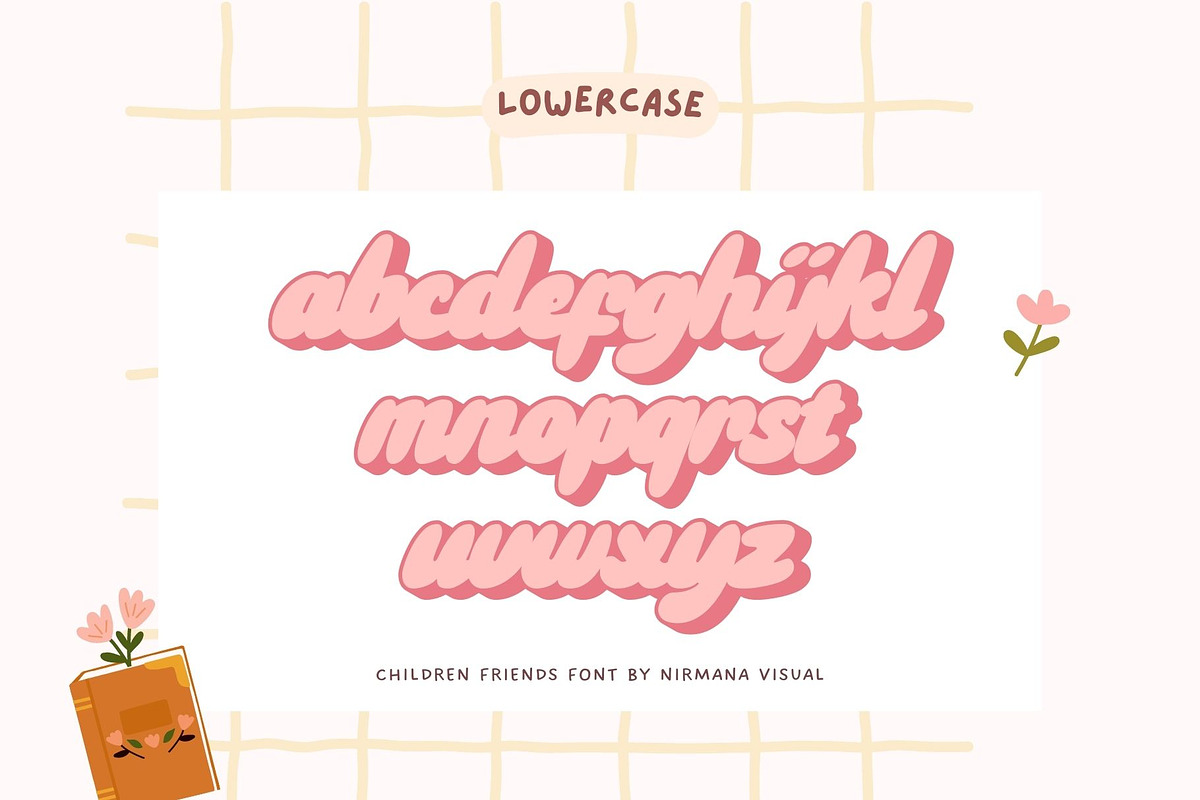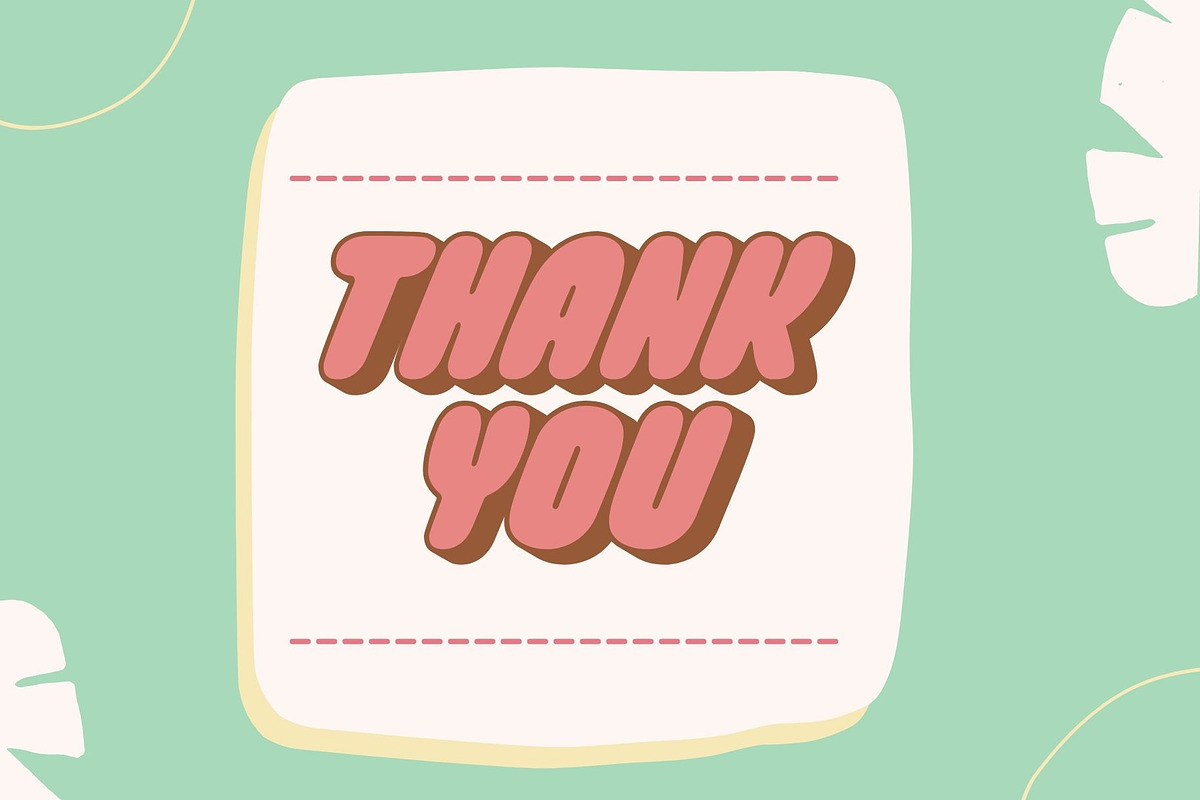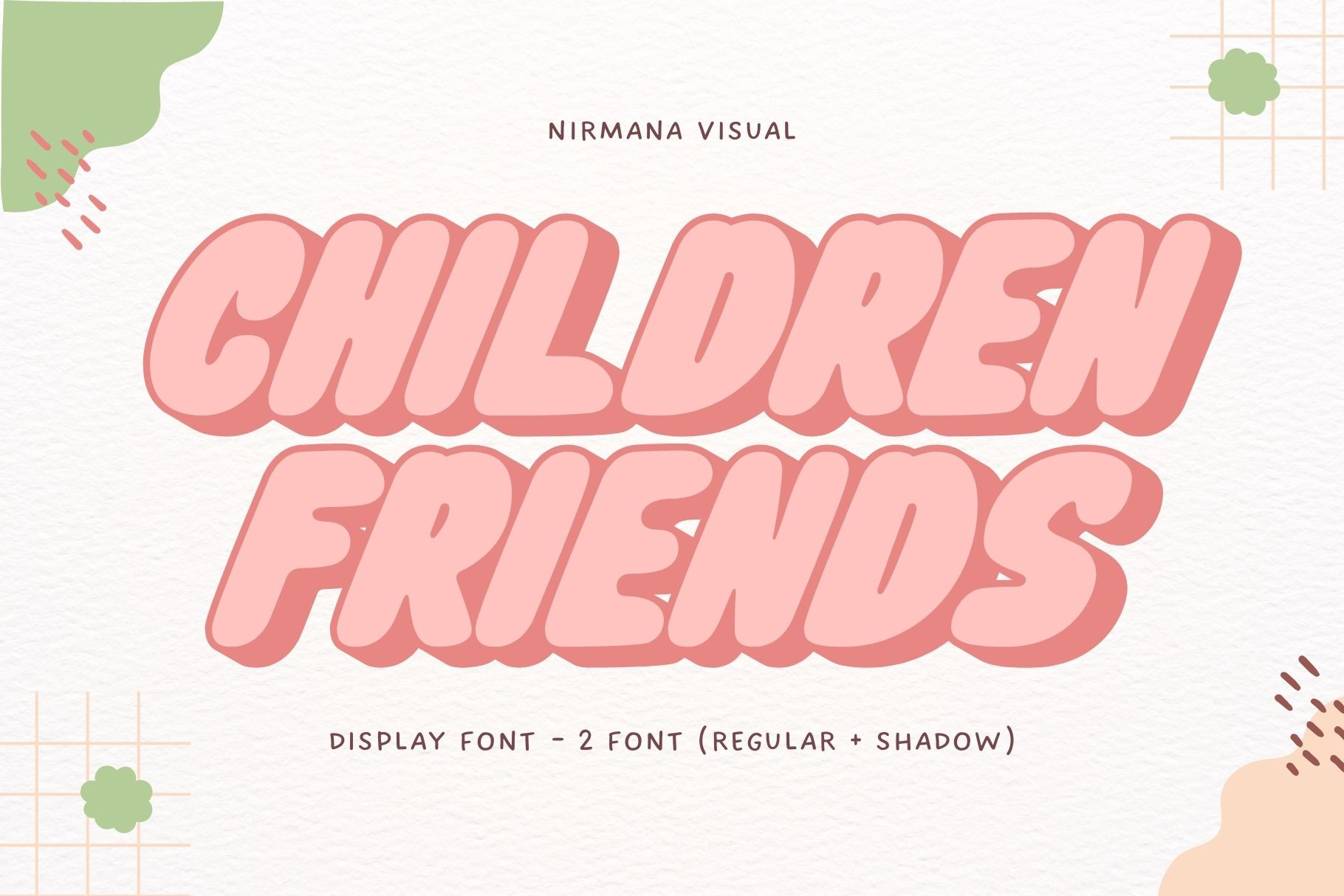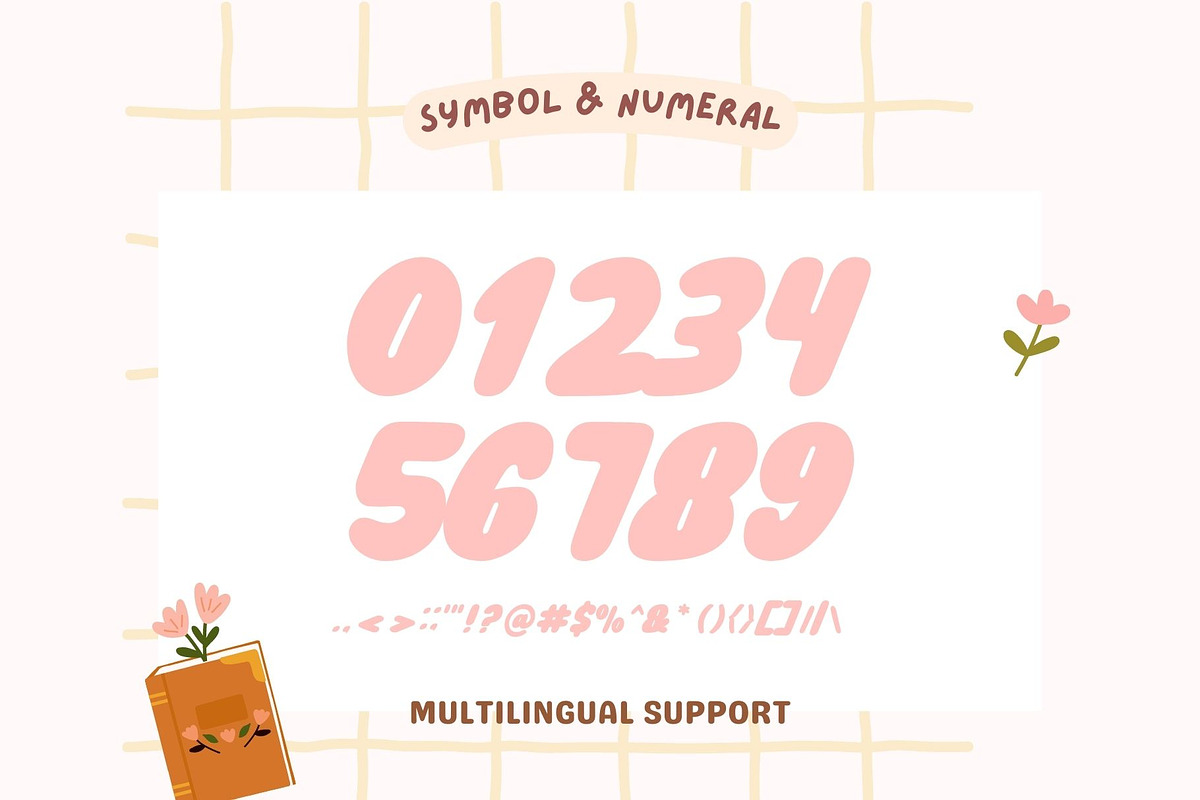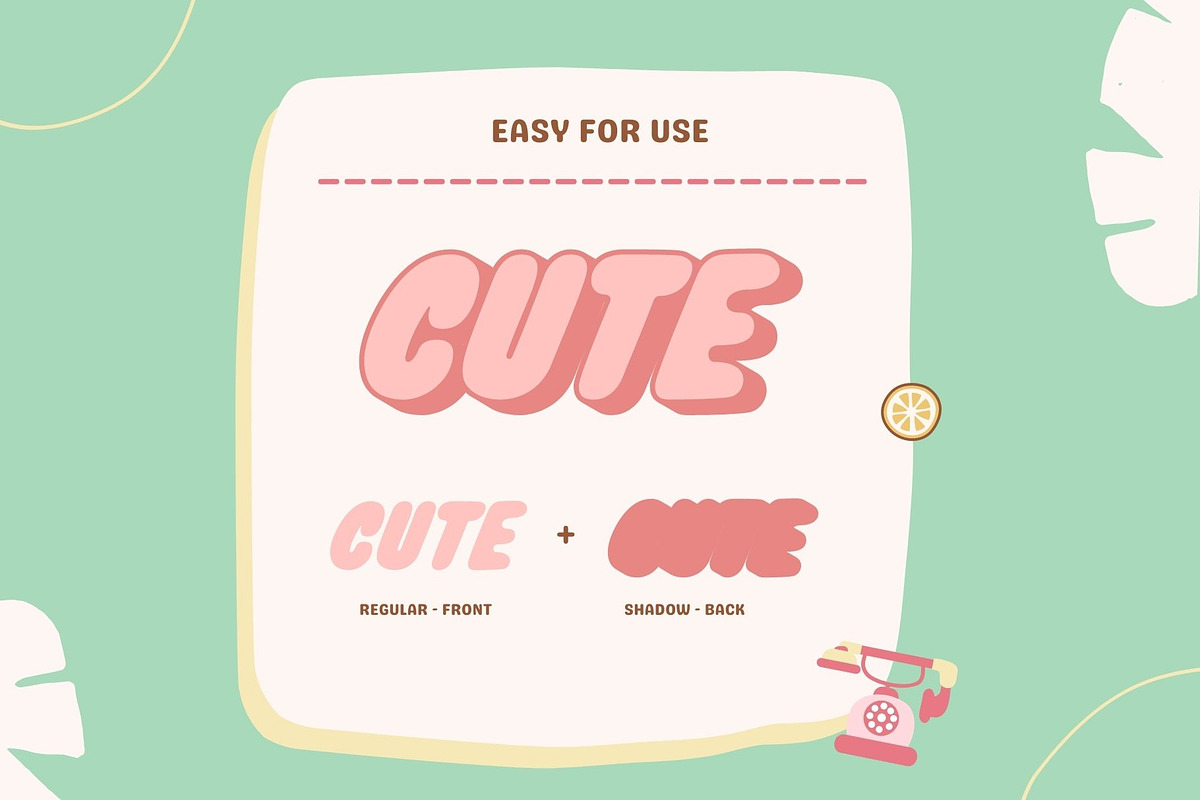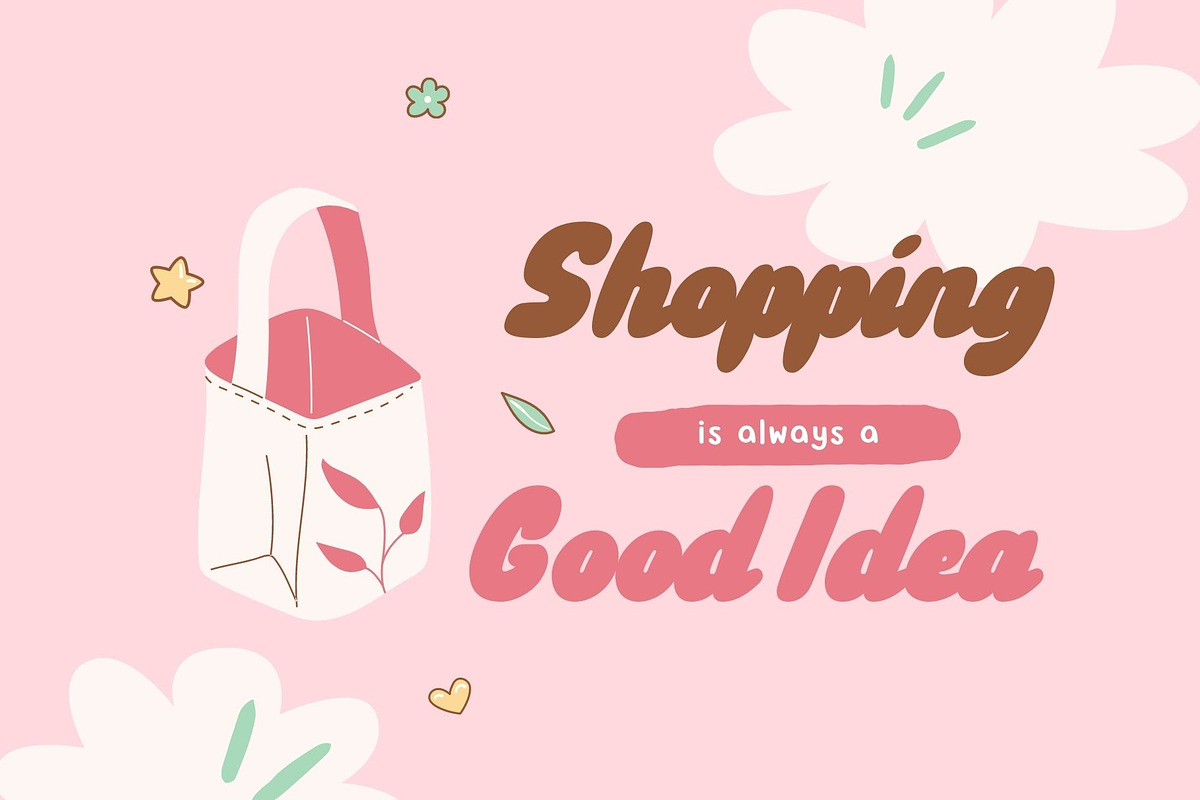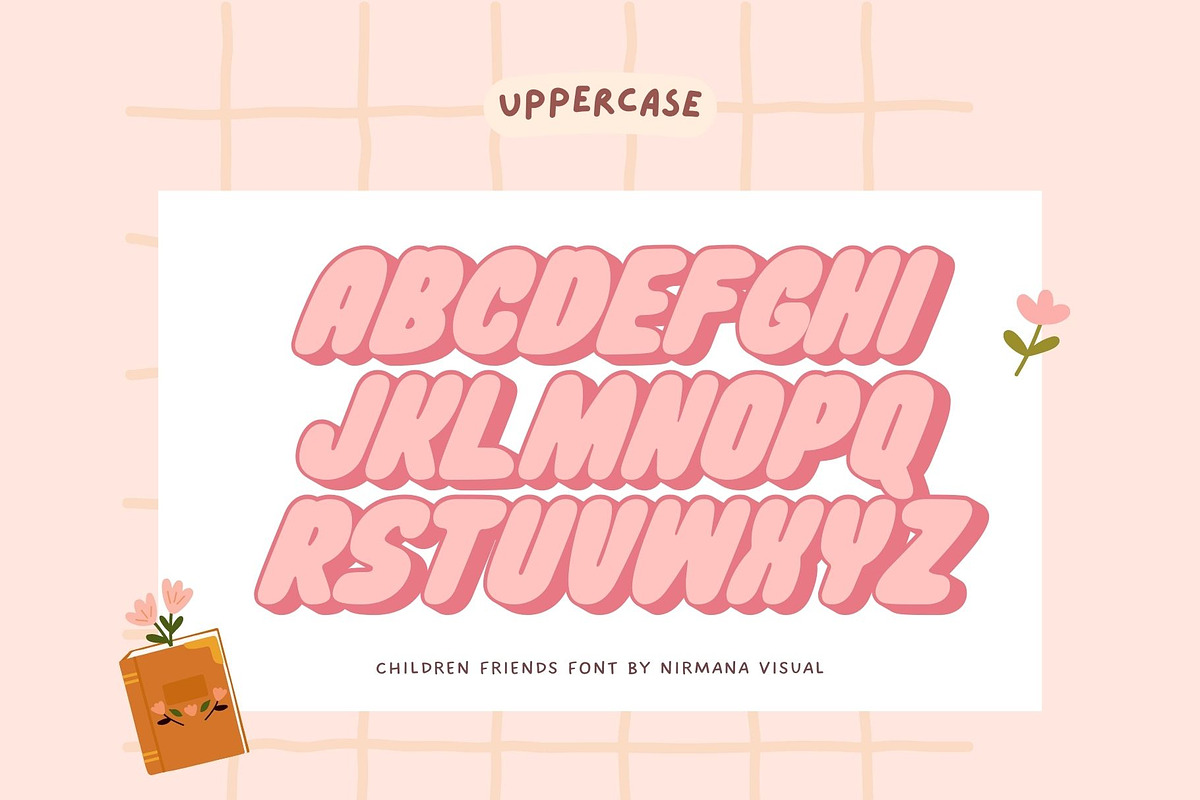
Children Friends - Playful Typeface
Children Friends - Kids Font
Children Friends beautiful typographic harmony for a diversity of design projects, including logos & branding, social media posts, advertisements & product designs.